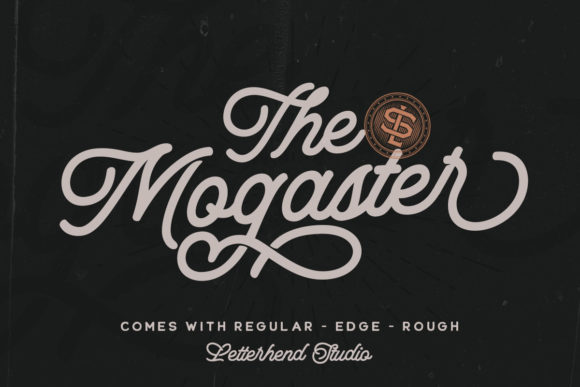
Behold, The Mogaster Font: Unleashing the Beauty of Personalized Design
In a world saturated with digital monotony, The Mogaster Font emerges as a radiant beacon of individuality, inviting you to infuse your creative projects with a touch of elegance and charm. This exquisite script font, meticulously crafted by the skilled hands at letterhend, is more than just a collection of characters; it's an artistic symphony that dances across your screen, captivating hearts and leaving a lasting impression.
The Mogaster Font's intricate strokes and graceful curves evoke a sense of timeless beauty, reminiscent of handwritten love letters and vintage manuscripts. Its versatility knows no bounds, effortlessly adapting to a myriad of design endeavors, from wedding invitations that whisper of romance to thank you cards that radiate gratitude. Whether you're crafting logos that demand attention or greeting cards that warm hearts, The Mogaster Font is your trusted companion, transforming ordinary words into visual masterpieces.
Picture this: your Instagram Reels, adorned with The Mogaster Font's enchanting allure, captivating your audience with a visual feast that speaks volumes. Each word, rendered in the font's elegant script, dances across the screen, drawing viewers into your enchanting world. The Mogaster Font is the ultimate storyteller, effortlessly conveying emotions, setting the mood, and leaving an indelible mark on your audience's hearts.
With The Mogaster Font, you're not just downloading a font; you're embracing an artistic journey, an exploration of creativity that knows no limits. It's a chance to unlock your inner artist, to let your imagination run wild and create designs that resonate with your soul. The Mogaster Font is your gateway to a world of personalized beauty, where every project becomes a reflection of your unique style and vision.
Don't settle for ordinary fonts that blend into the background. Embrace The Mogaster Font, a font that commands attention, ignites emotions, and leaves a lasting legacy. Let your designs bloom with elegance, charm, and a touch of the extraordinary. The Mogaster Font awaits you, ready to transform your creative dreams into stunning realities.